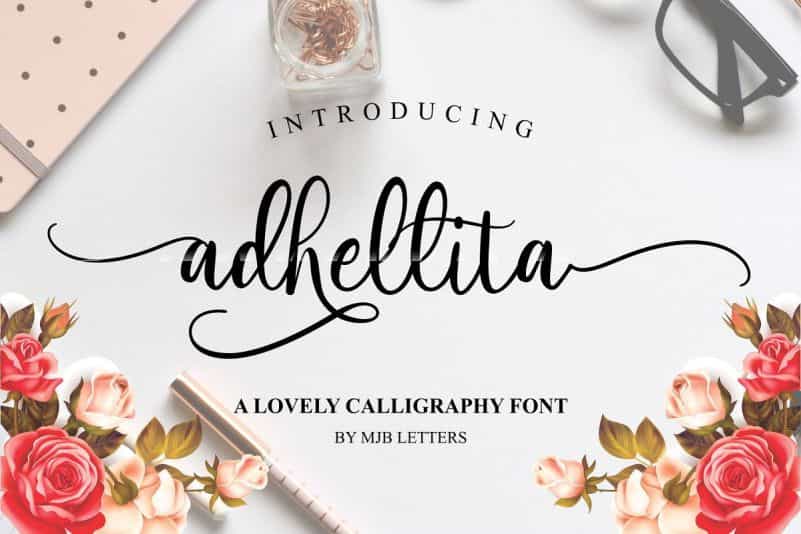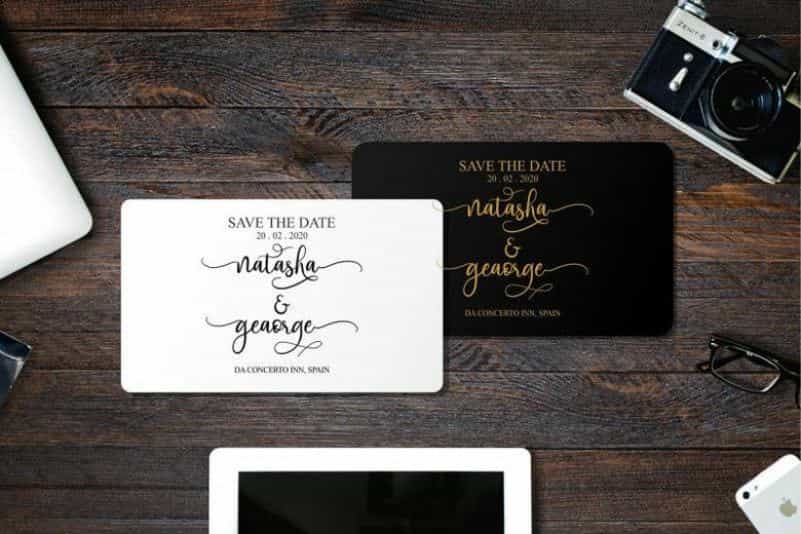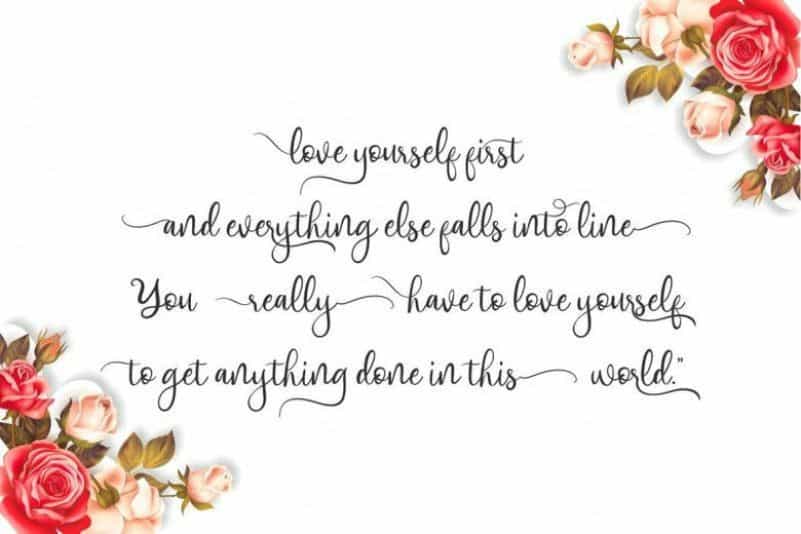
I am happy to inform you that Adhellita Font, a beautiful calligraphy font, can be downloaded for free. It is a fantastic hand written style font with a lot of amazing curves and alternatives. It will spice up any design in a different way!